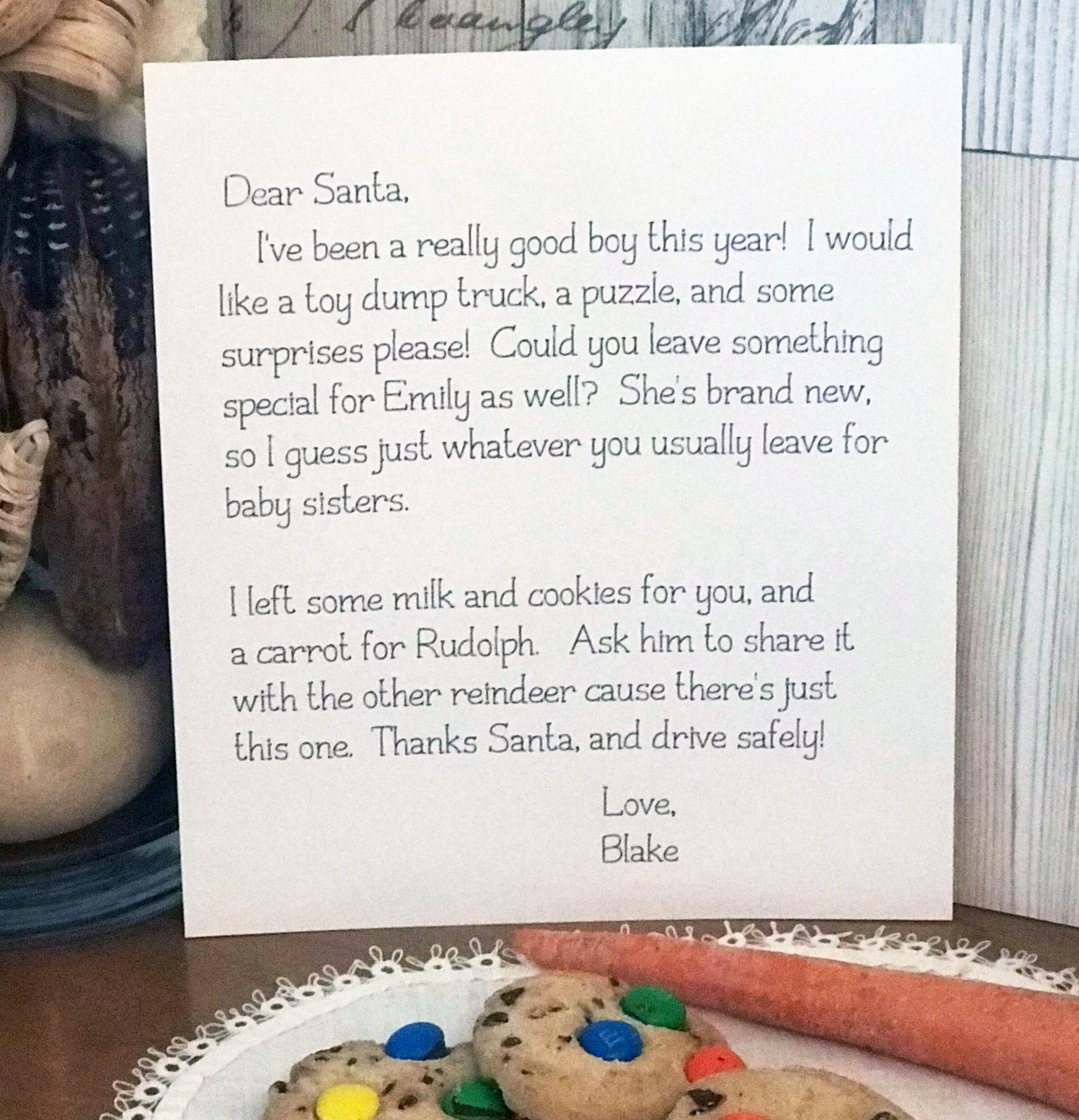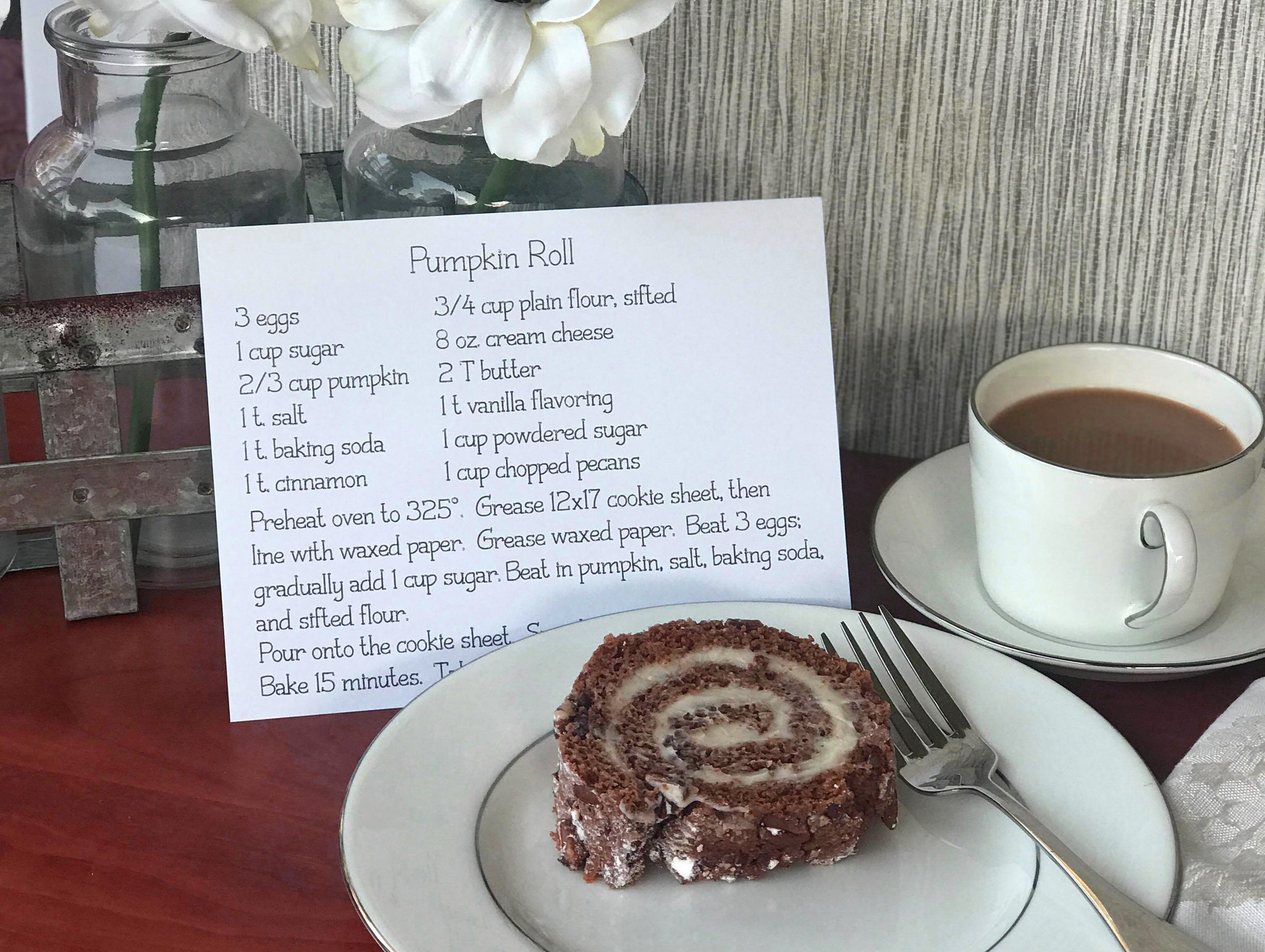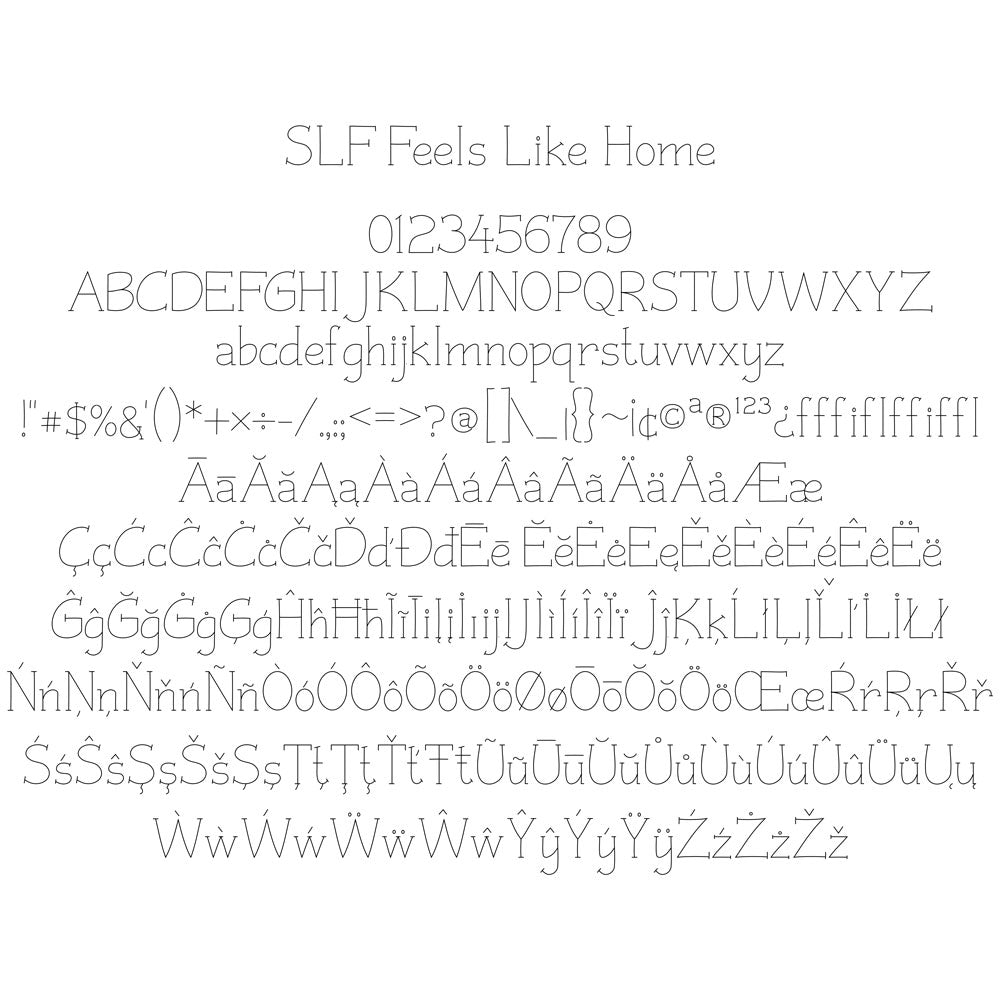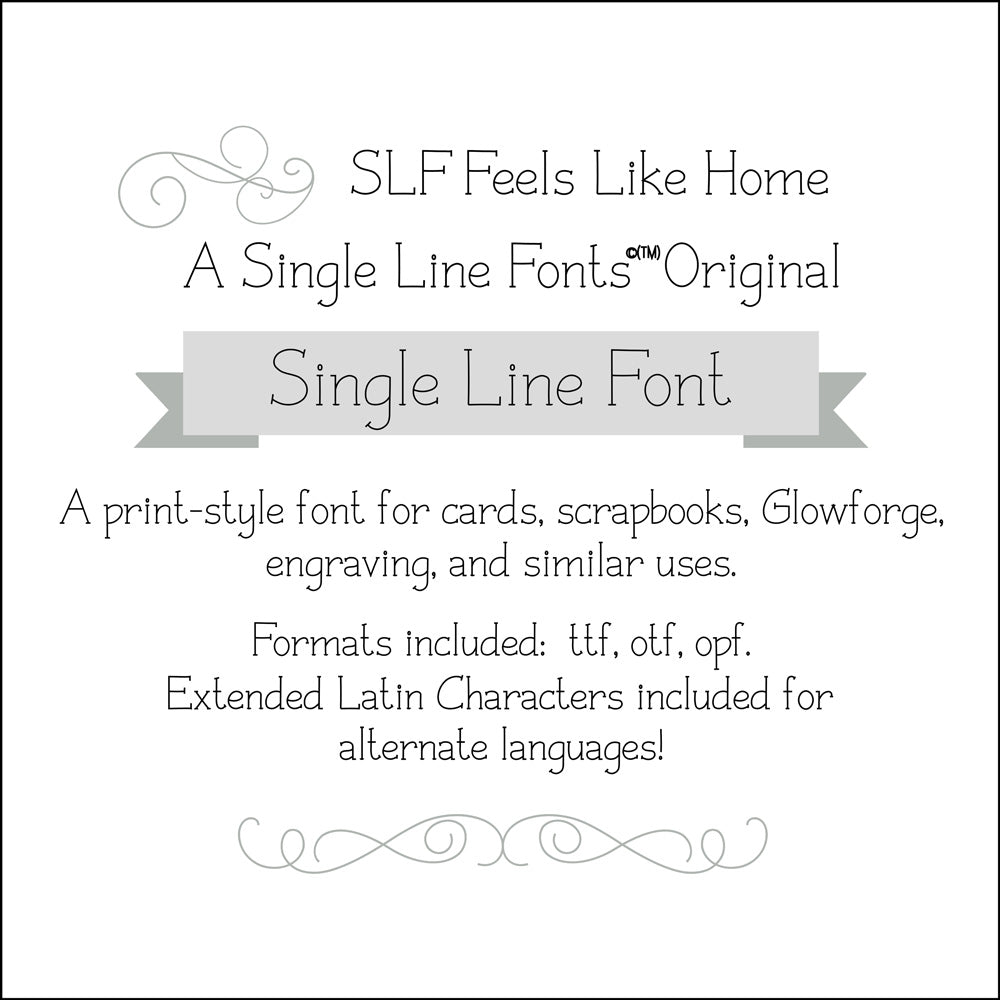
Single Line Font "SLF Feels Like Home"
SLF Feels Like Home
Home for the holidays.  These words make me think of holiday baking with my mom, delicious meals, football games, fireside gatherings, caroling, and enjoying special time with family and friends.
SLF Feels Like Home has special touches that make it perfect for a variety of uses this holiday season.  A few ideas are for recipes, in foil quilling projects, engraving onto ornaments, making unique handmade tags for Christmas gifts, and sending extra-special cards to friends and family.